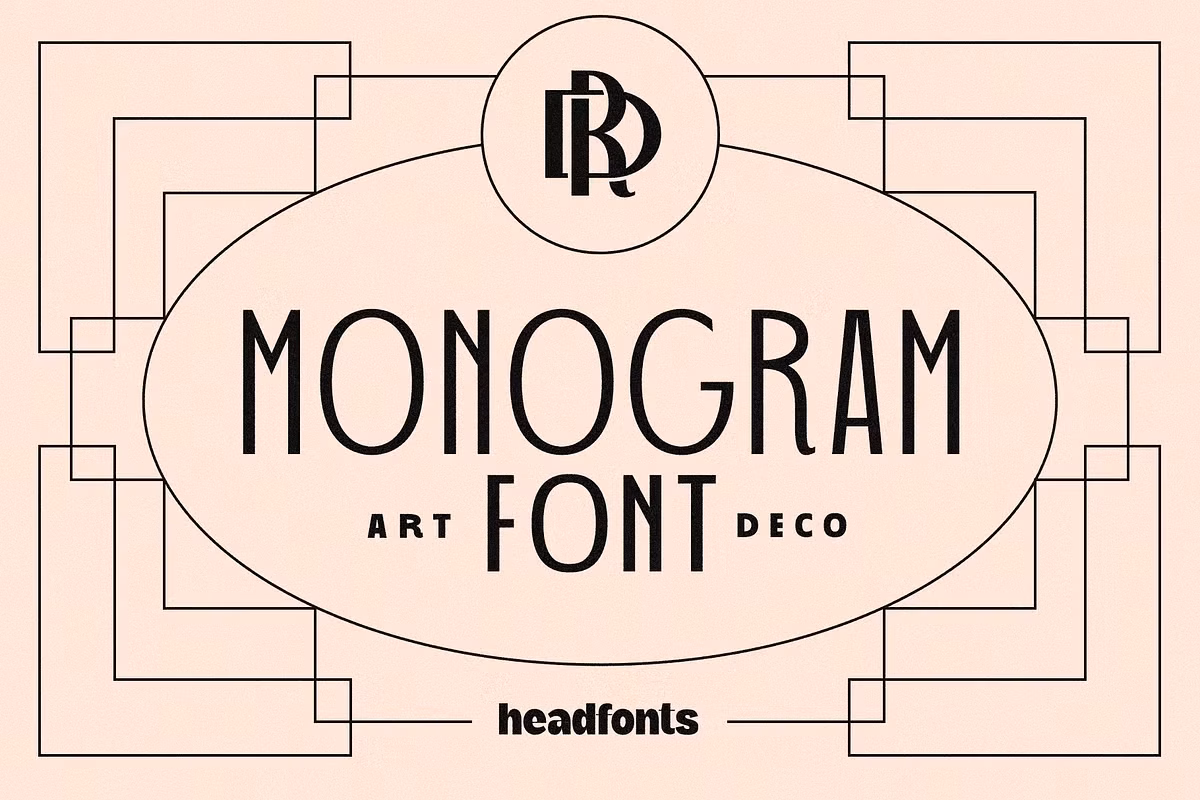
Art Deco Monogram Font Free Download
Art Deco Monogram Font Free Download is a sophisticated and stylish typeface inspired by the glamorous Art Deco movement. With its geometric shapes and elegant letterforms, this font is perfect for creating monograms, luxury branding, upscale invitations, and vintage-style logos. Its bold, clean lines and intricate details bring an air of timeless sophistication to any project, making it ideal for high-end design work. Whether you're designing for a luxury brand, crafting a monogram for an exclusive event, or creating a vintage-inspired logo, Art Deco Monogram Font Free Download allows you to test its refined style in personal projects before purchasing a commercial license. Add a touch of elegance and glamour to your designs with this beautifully crafted Art Deco-inspired font.